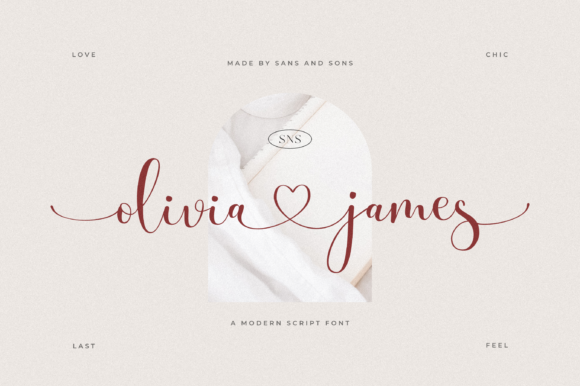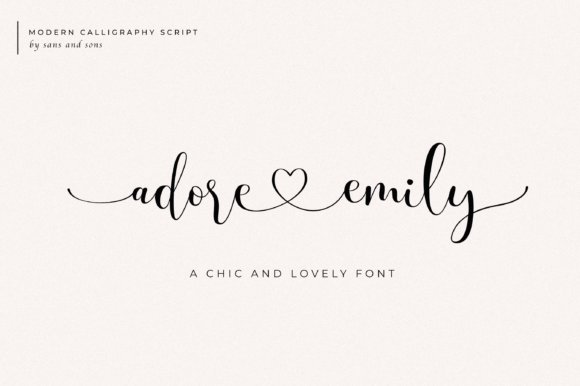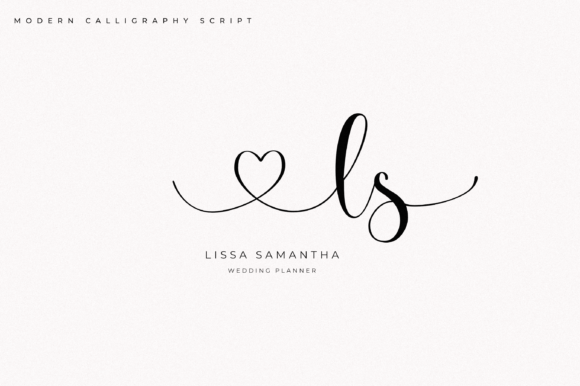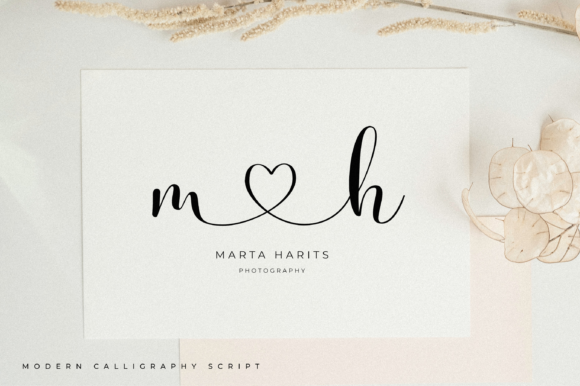
Olivia James Font
About the Olivia James Font
Unleash your creativity with Olivia James Font, a versatile font perfect for a wide range of applications. Olivia James is a unique handwritten font with a romantic feel. Its natural and unique style makes it incredibly fitting to a large pool of designs. The only limit is your imagination!
Olivia James excels in applications requiring a touch of romantic elegance, such as wedding invitations, greeting cards, or branding for businesses focused on beauty, fashion, or artisanal goods. Its natural variation works beautifully in short headlines, quotes, and logos. However, the handwritten nature makes it unsuitable for lengthy body text or UI elements where legibility is paramount.
For optimal impact, pair Olivia James with a clean sans-serif like Lato or Open Sans for body text, providing a strong contrast and enhancing readability. Alternatively, a delicate serif such as Playfair Display can create a sophisticated and cohesive look, ideal for high-end branding projects. Avoid pairing it with overly geometric or bold fonts, which could clash with its organic feel.
The font’s overall personality is best described as romantic and elegant, with a touch of playful charm. Its inherent softness makes it unsuitable for projects demanding a bold or aggressive aesthetic.
Olivia James Font Usage Examples
Olivia James Font Example